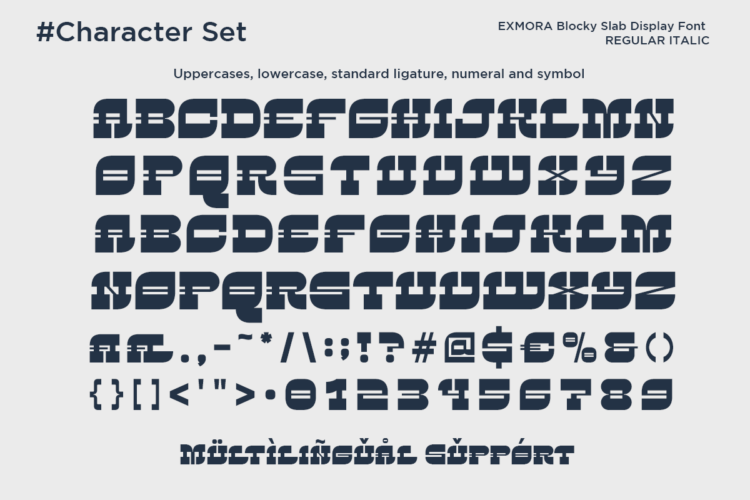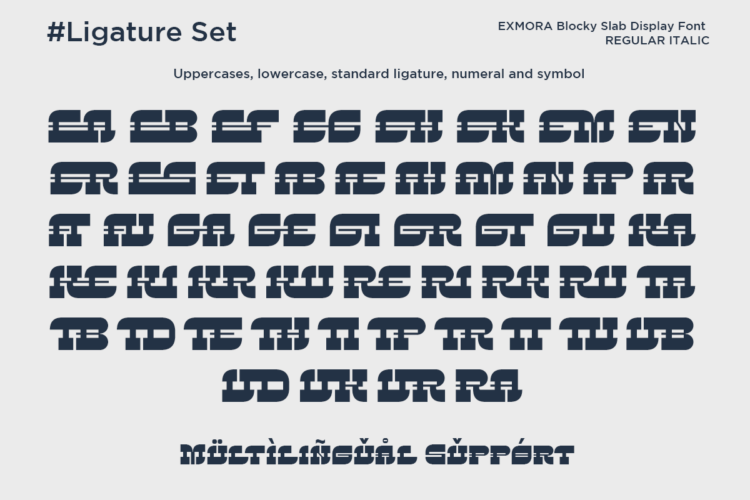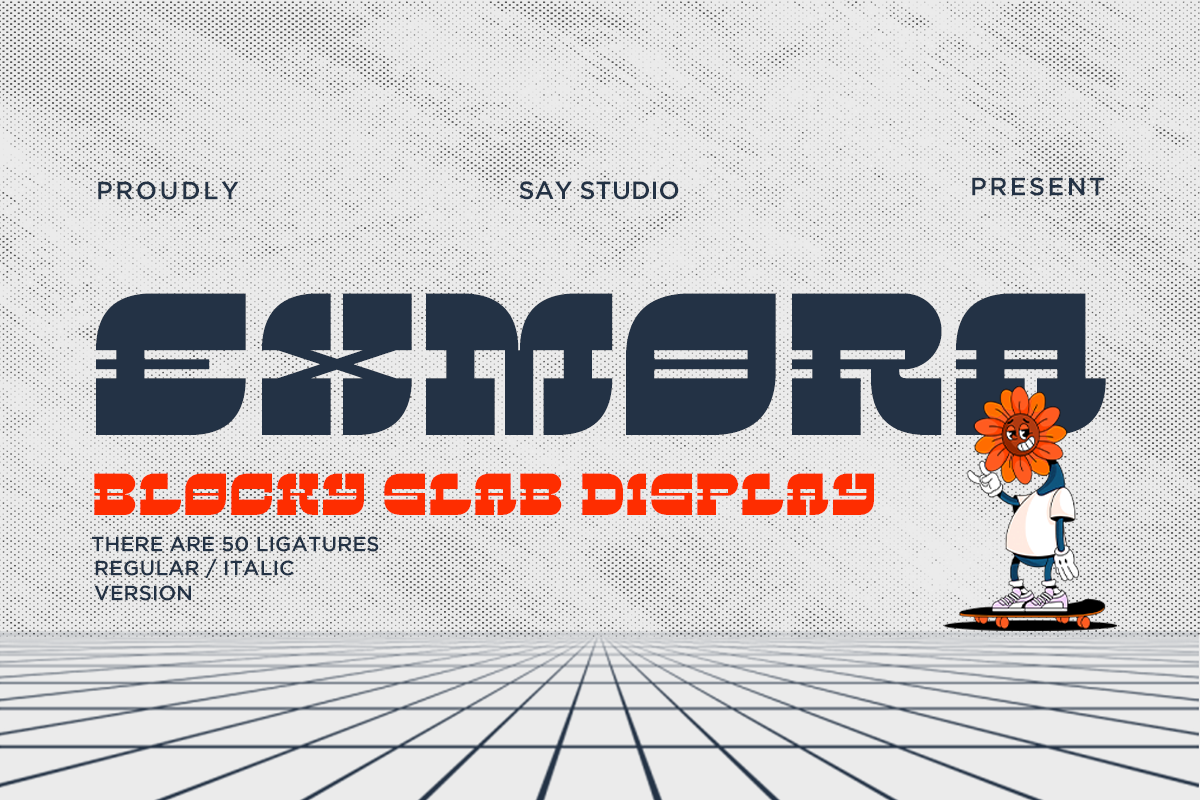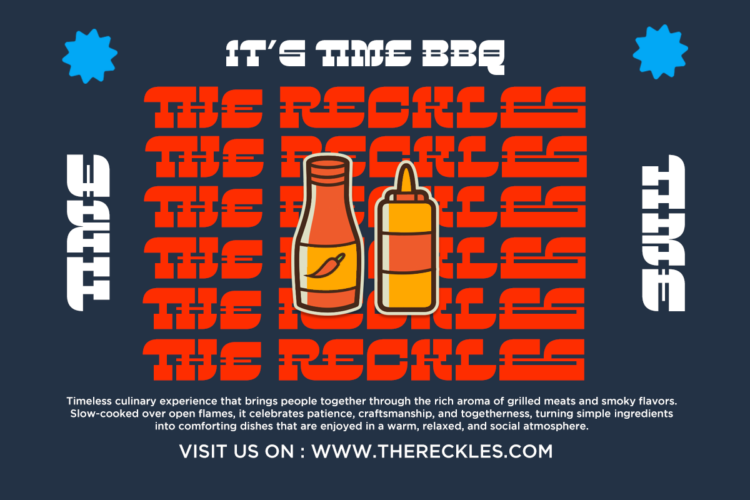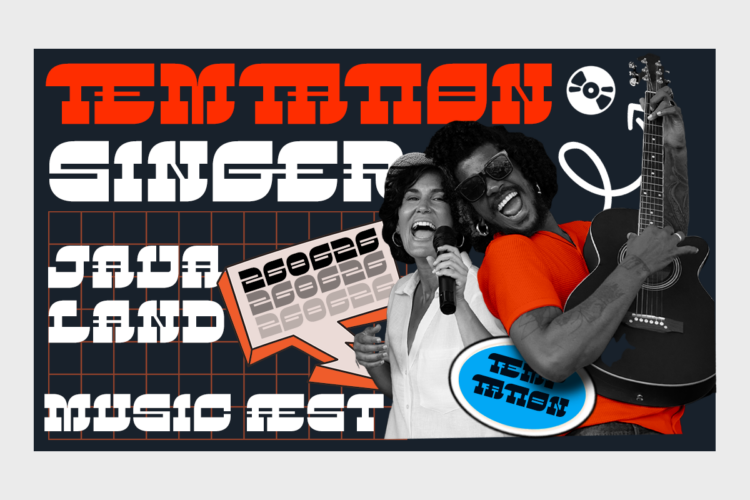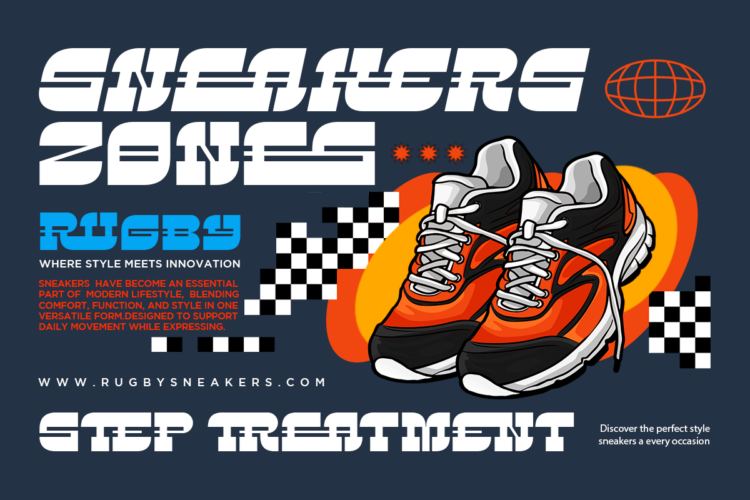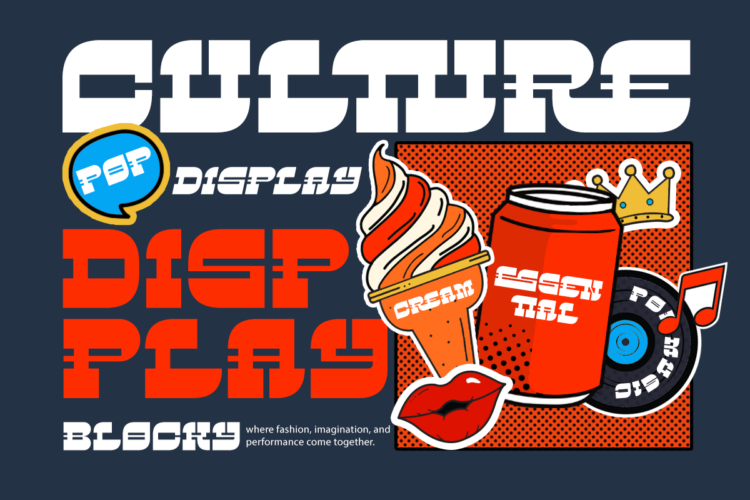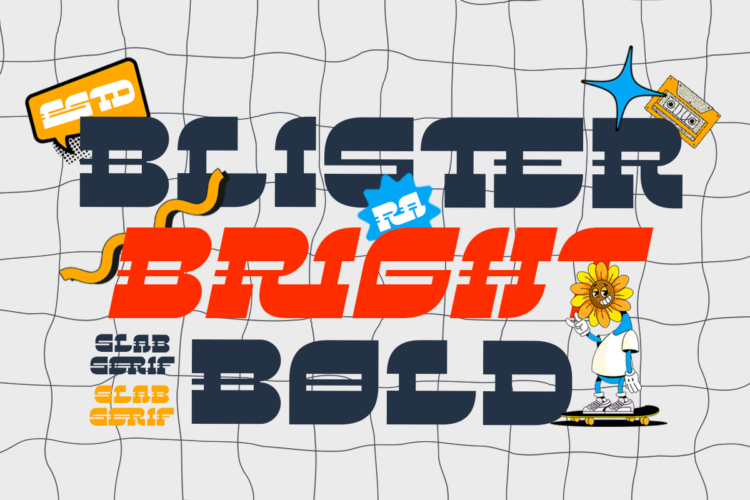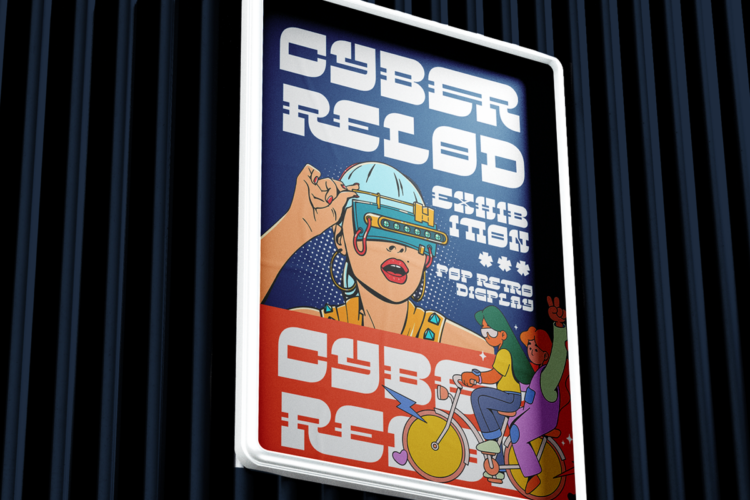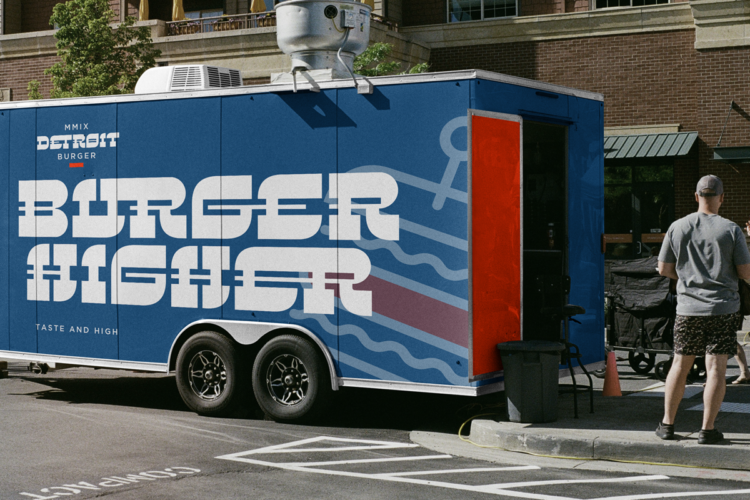
Exmora – Blocky Slab Display
Exmora is a blocky slab display font with chunky, geometric, and playful shapes. Designed to deliver strong visual impact, exmora works perfectly for posters, headlines, logos, branding, packaging, streetwear designs, and modern creative projects. Its solid structure and fun character make exmora ideal for eye-catching typography with a modern, futuristic, and energetic feel.
– Uppercase, Lowercase
– Ligatures
– Symbol, Number